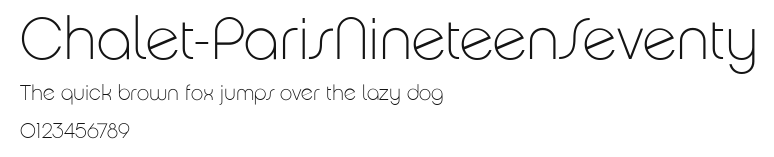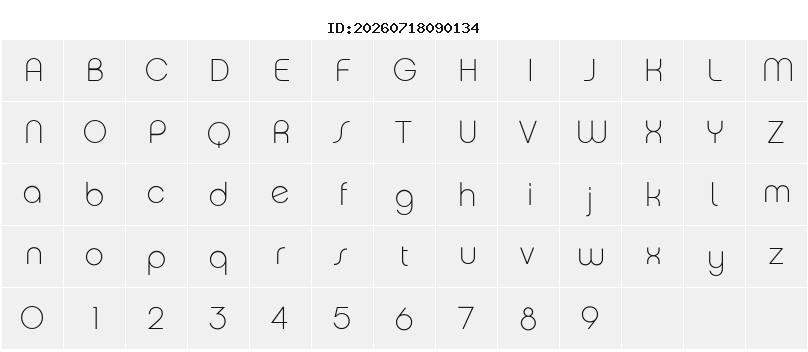
Chalet-ParisNineteenSeventy Preview
• Font Name: Chalet-ParisNineteenSeventy
• Full Font Name: Chalet-ParisNineteenSeventy
• PostScript Name: Chalet-ParisNineteenSeventy
• Designer: House Industries
About Chalet-ParisNineteenSeventy.ttf
Chalet-ParisNineteenSeventy.ttf is a modern, elegant sans-serif font designed for ultimate readability and visual harmony. Perfect for branding, headlines, web design, and print materials.